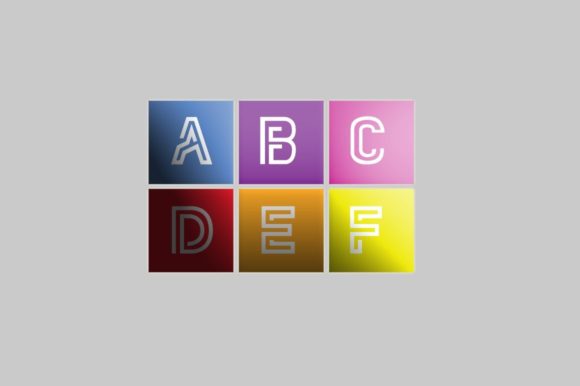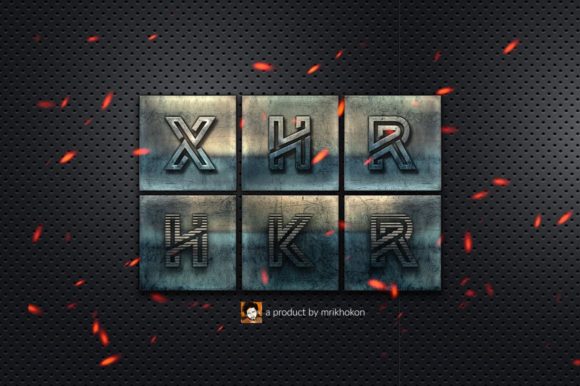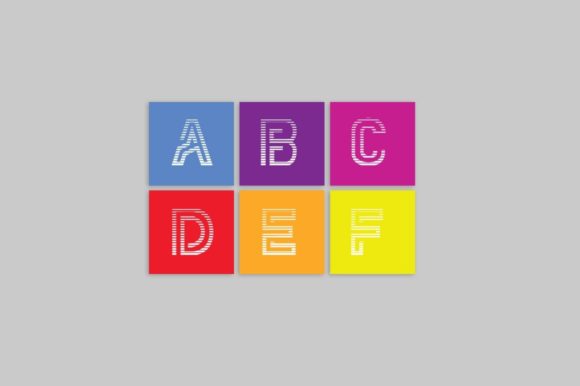
Introducing Brand Name Font: The Ultimate Display Font for Modern Designers
Are you tired of using the same old fonts in your designs? Do you want to add a touch of modernity and sophistication to your projects? Look no further than Brand Name Font, a cool, bold, and 3D looking display font that’s sure to take your designs to the next level.
What is Brand Name Font?
Brand Name Font is a fancy and techno-looking font that’s perfect for designers and crafters who want to add a unique touch to their projects. This display font is designed to make a statement, with its bold and 3D appearance that’s sure to grab attention. Whether you’re working on a logo, a poster, or a website, Brand Name Font is the perfect choice.
Key Features of Brand Name Font
- Cool and Bold Design: Brand Name Font has a unique and modern design that’s sure to make your projects stand out.
- 3D Appearance: The font’s 3D appearance adds depth and dimension to your designs, making them more engaging and interactive.
- Techno Look: The font’s techno look is perfect for modern designs that require a touch of innovation and sophistication.
Why Choose Brand Name Font?
There are many reasons why you should choose Brand Name Font for your next project. Here are just a few:
- Unique Design: Brand Name Font has a unique design that’s sure to make your projects stand out from the crowd.
- Versatility: The font is versatile and can be used in a variety of projects, from logos and posters to websites and social media graphics.
- High-Quality: Brand Name Font is a high-quality font that’s designed to produce crisp and clear results, even at large sizes.
Tips and Tricks for Using Brand Name Font
Here are some tips and tricks for using Brand Name Font:
- Use it Sparingly: Use Brand Name Font sparingly, as it’s a bold font that can overwhelm your design if used too much.
- Experiment with Colors: Experiment with different colors to find the perfect combination that works with your design.
- Pair it with Other Fonts: Pair Brand Name Font with other fonts to create a unique and interesting design.
- Use it for Headings: Use Brand Name Font for headings and titles, as it’s perfect for making a statement.